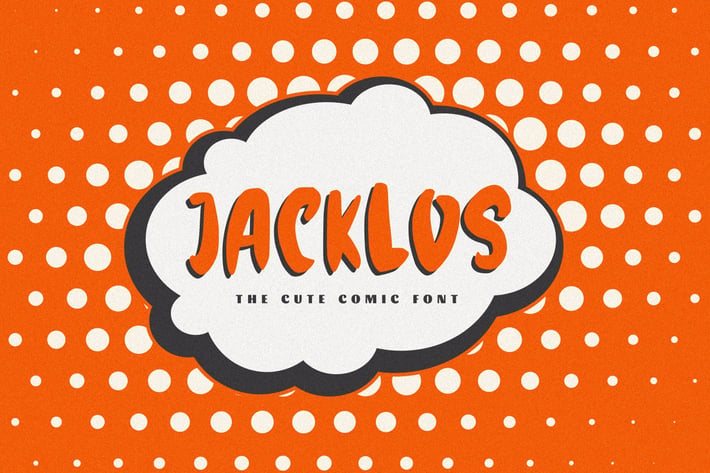
Jacklos - The Cute Comic Font
Jacklos - The Cute Comic Font, every single letter has been carefully crafted to make your text looks beautiful. it's perfect for logos, name cards, magazine layouts, invitations, headers, or even large-scale artwork.
- Jacklos font including upper & lowercase characters, numerals and more of symbols.